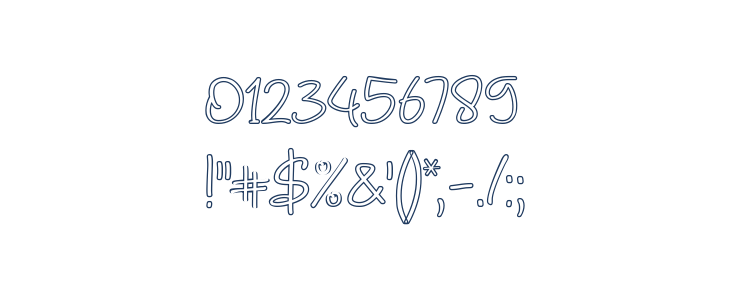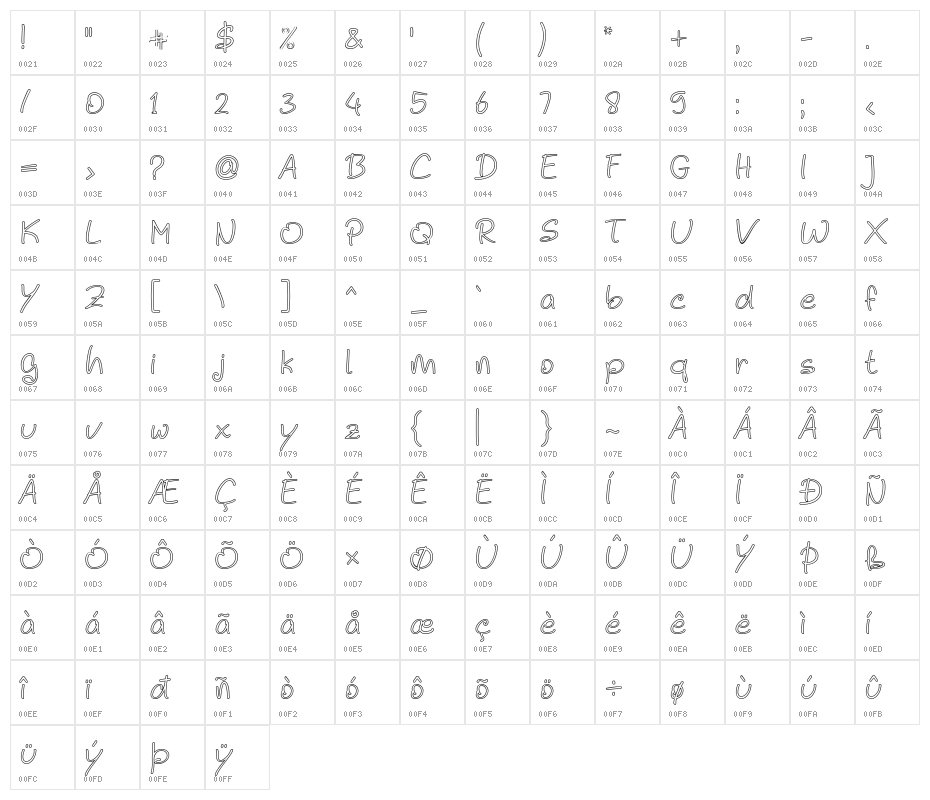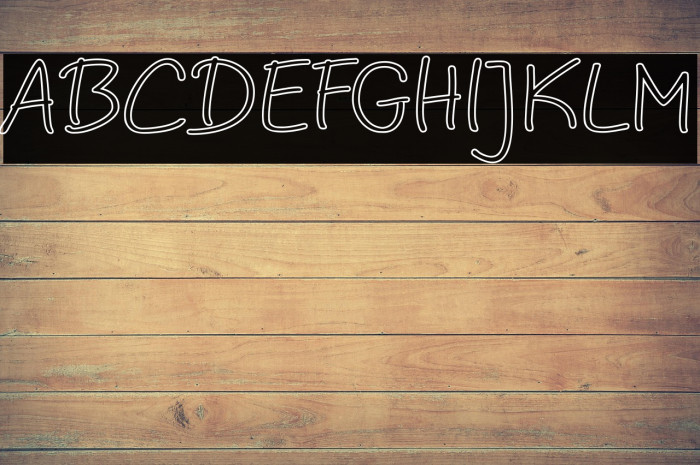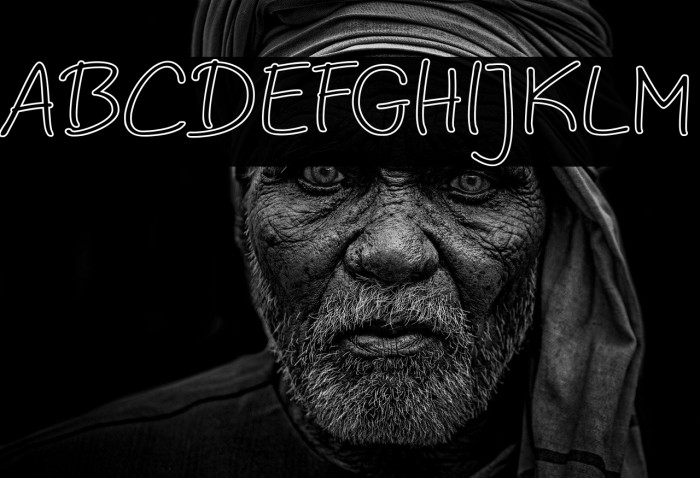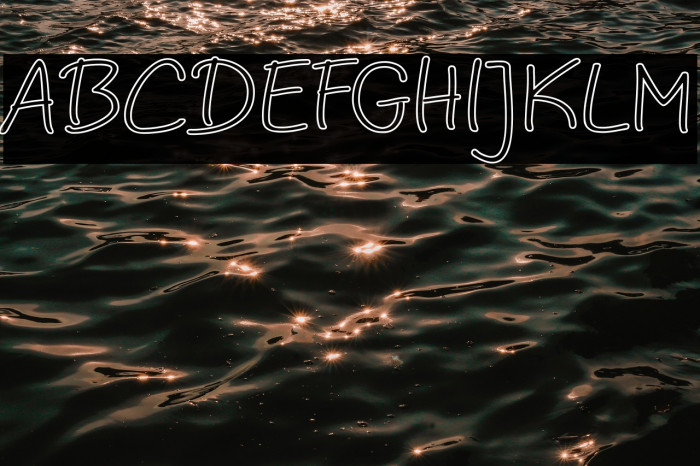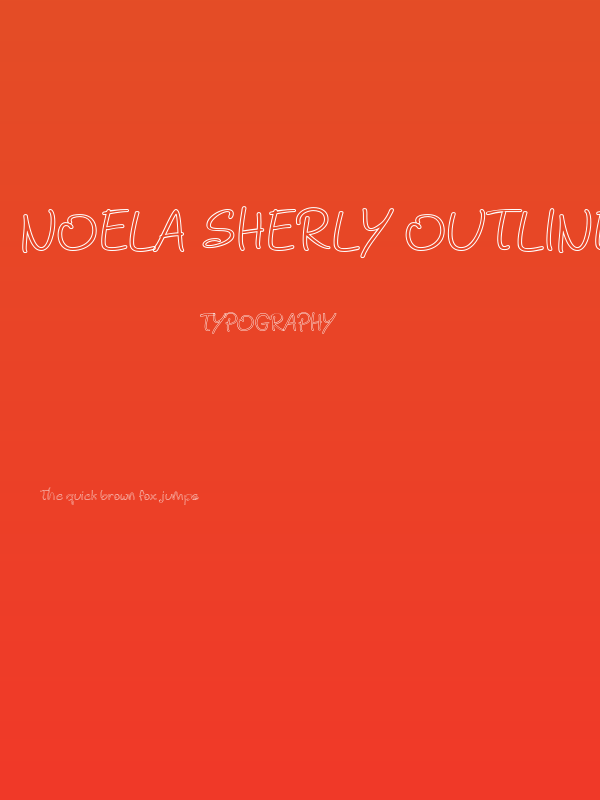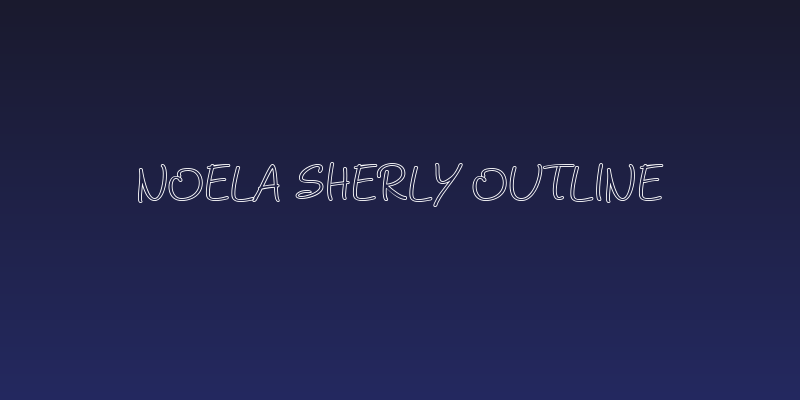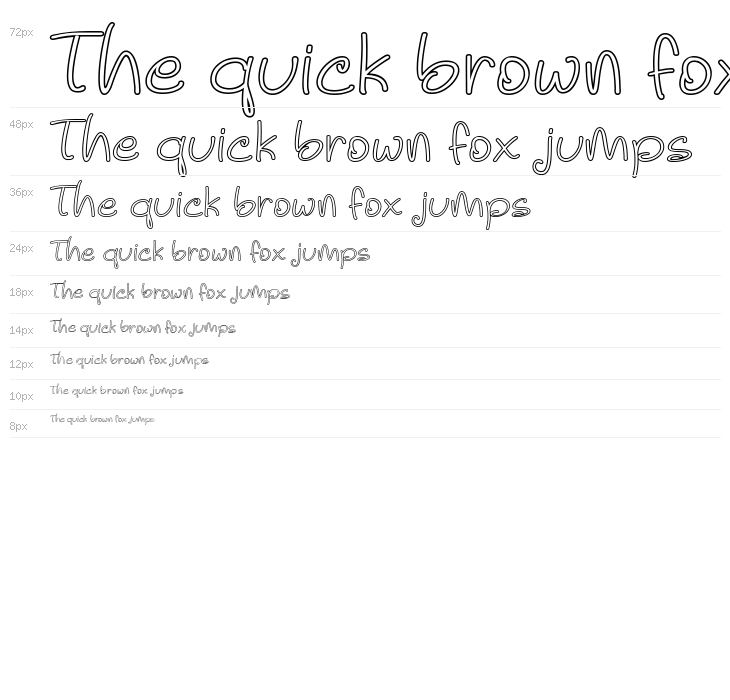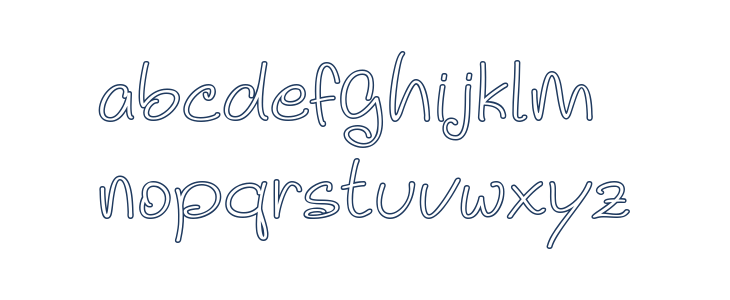
Noela Sherly Outline Font
Noela Sherly Outline Description
This font features an outline style that gives it a playful and artistic appearance. The characters are crafted with a single continuous line that forms the outer edges, creating a hollow effect. The uppercase letters are bold and slightly rounded, while the lowercase letters maintain a consistent flow with a touch of whimsy. Numbers and special characters follow the same outline design, ensuring uniformity across all elements. The overall look is casual and approachable, making it suitable for creative projects that require a unique and eye-catching typeface.
| Overall Style | Playful, Artistic |
| Proposed Projects | Ideal for children's book covers, creative posters, playful branding, and artistic invitations. |